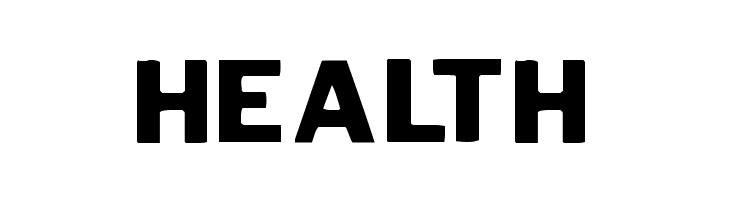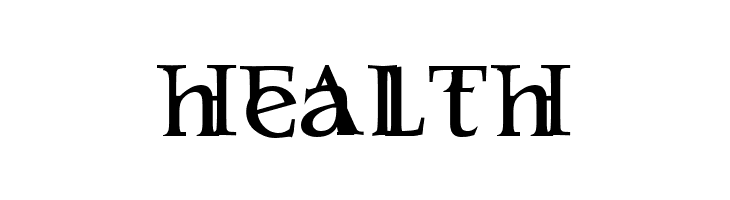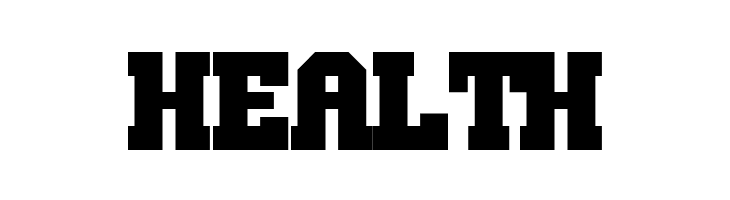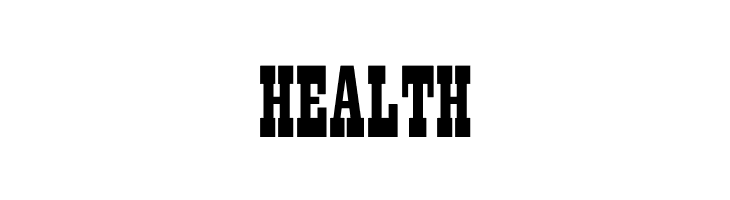
A classic serif font with elegant, tall letters and sharp serifs.
A bold, geometric font with high contrast and classical influences.
A bold, italicized blackletter-inspired font with sharp, angular lines.
A bold, vintage-style font with strong, uniform strokes and decorative numbers.
A bold and impactful font with a strong, authoritative presence.
A bold, high-contrast serif font with dramatic, angular serifs and unique embellishments.
A bold, slab serif font with high contrast and vintage-modern appeal.
A bold, blocky font with a strong, geometric design.
A bold, impactful slab serif font with a vintage yet modern appeal.